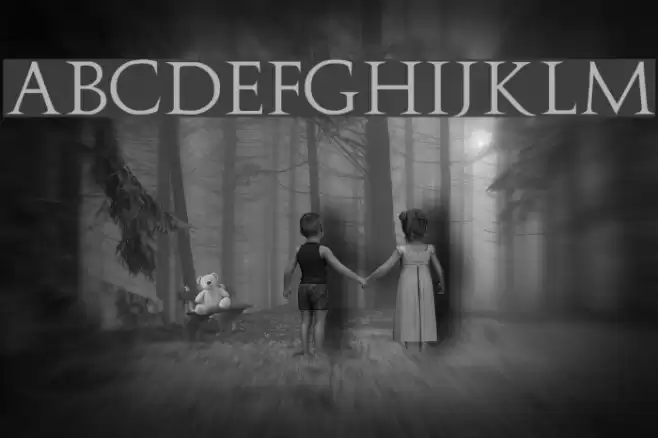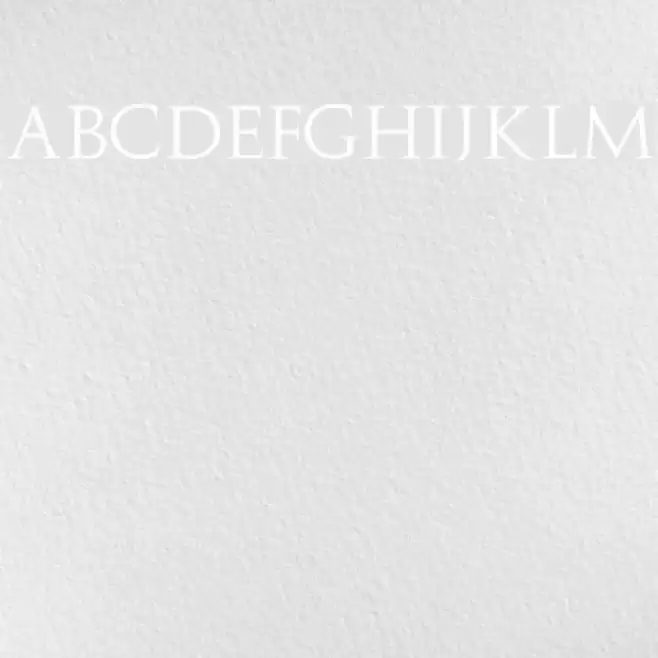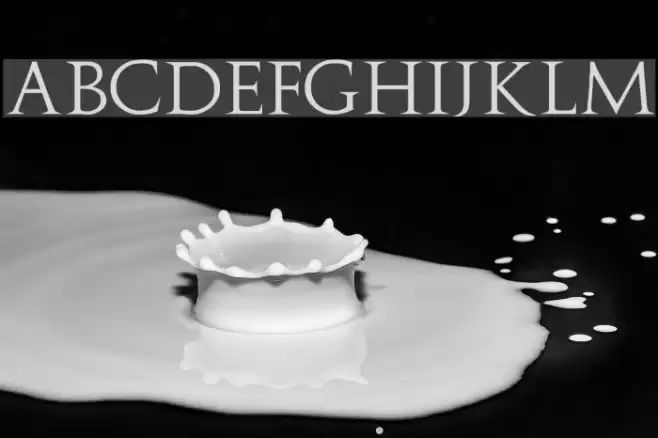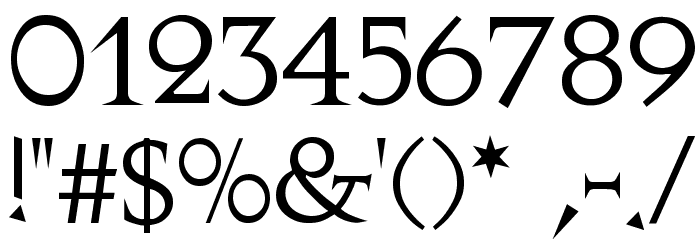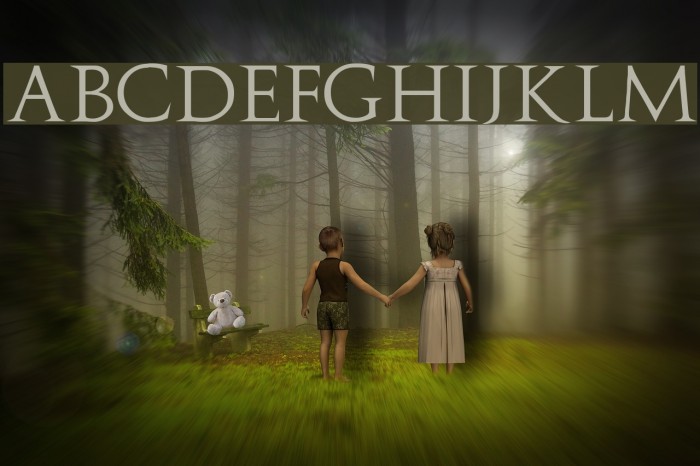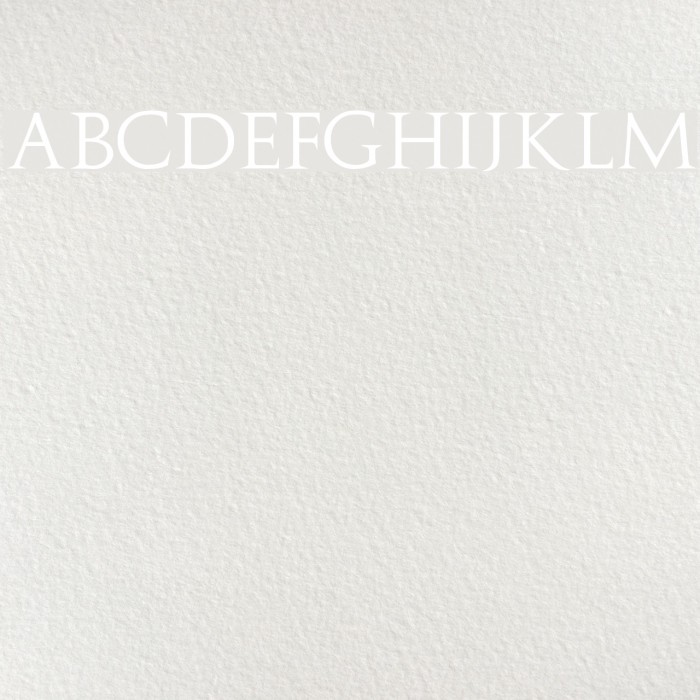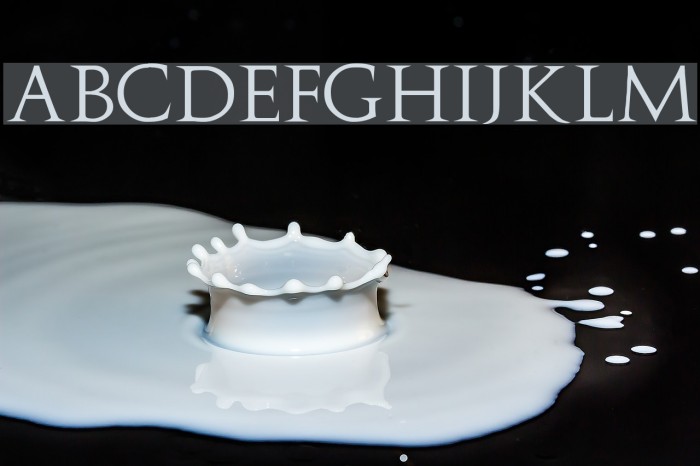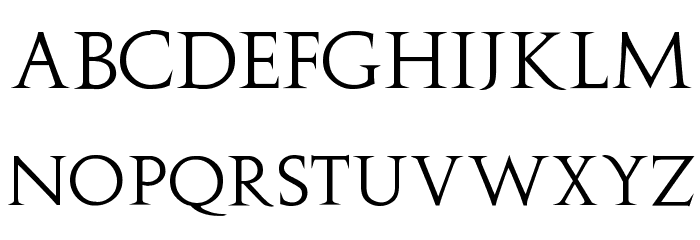
Augustus
This font exudes a classic and elegant style, characterized by its sharp serifs and balanced proportions. The uppercase letters are bold and commanding, while the lowercase letters maintain a consistent and harmonious flow. The numerals are distinct and clear, making them easily readable. Special characters are crafted with precision, adding to the font's overall sophistication. The design is reminiscent of traditional Roman typefaces, yet it maintains a modern touch, making it versatile for various applications.
A classic serif font with sharp serifs and balanced proportions, exuding elegance and sophistication.
- Proposed Projects: Ideal for formal documents, book titles, branding, and editorial design where a touch of classic elegance is desired.
- Category: Serif
- Contrast: High
- Overall Style: Classic